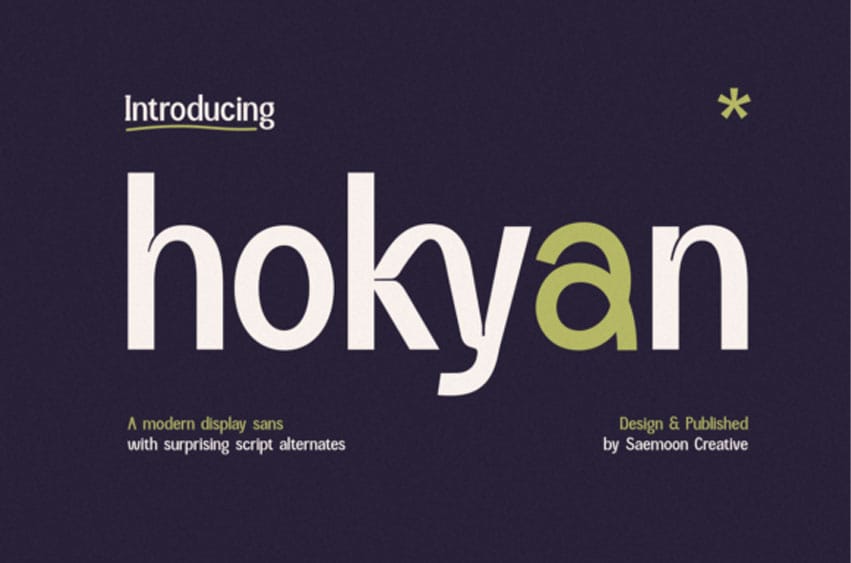
Hokyan Font is a clean and modern sans-serif font with a unique twist of playful alternates. Perfect for designers looking to add a creative and stylish touch to their work, Hokyan works beautifully for logos, branding, posters, product packaging, and more.
This font features smooth curves, balanced proportions, and script-inspired alternates that bring personality to every word. Hokyan also supports multiple languages, making it versatile and ready for any project.
Add a bold and modern feel to your next design with Hokyan!